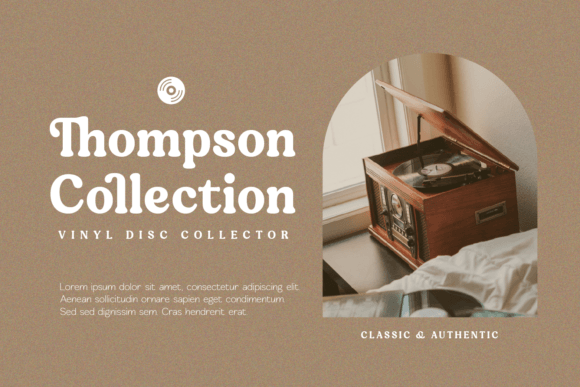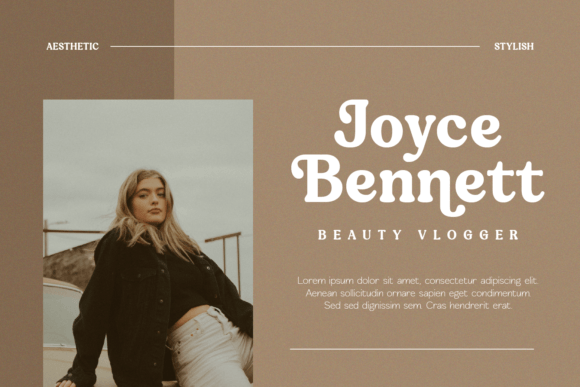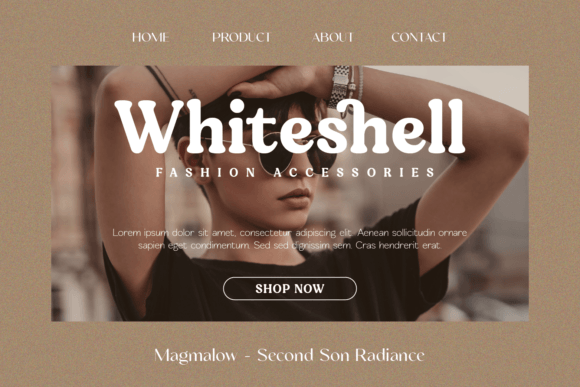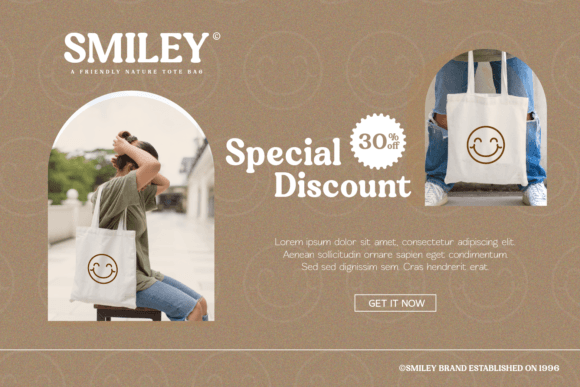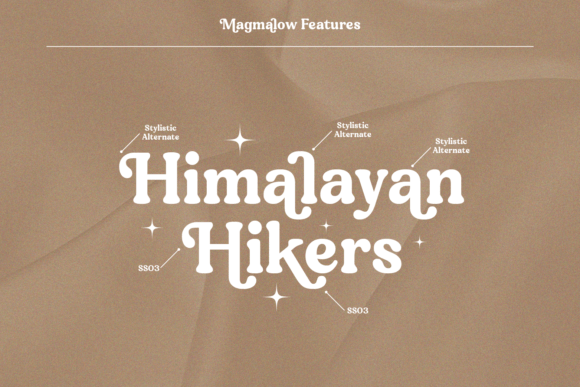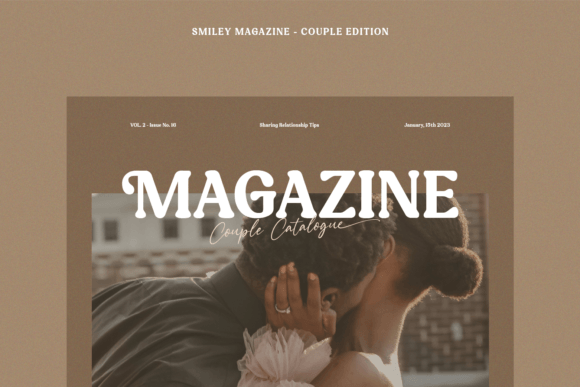
Introduction to Magmalow Font
Magmalow is a beauty retro serif font with a touch of retro and 80s vibes.
It is perfect for your upcoming projects such as retro logo and branding, classy poster designs, 80’s magazines, FnB brands, art gallery branding, boutique branding, stationery design, blog design, modern advertising designs, card invitations, art quotes, home decor, book/cover titles, special events, and more .
Key Features of Magmalow Font
Why Choose Magmalow Font?
Magmalow Font offers exceptional quality and versatility, making it a valuable addition to your design toolkit. Whether you’re creating for personal projects or commercial use, Magmalow Font delivers professional results.